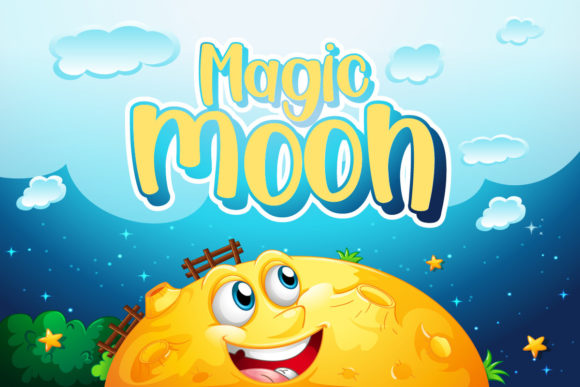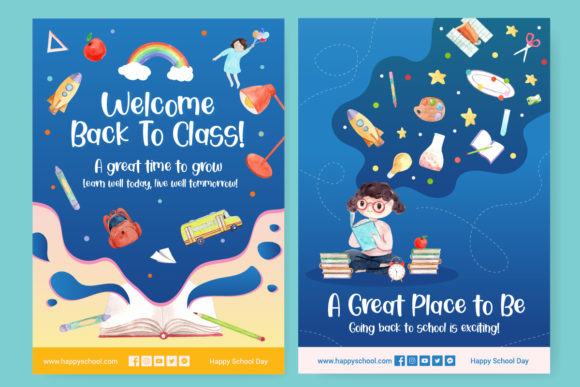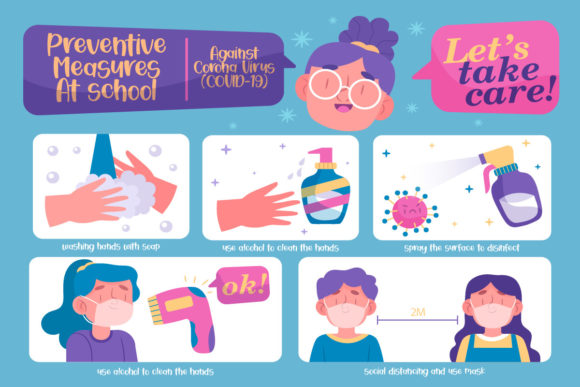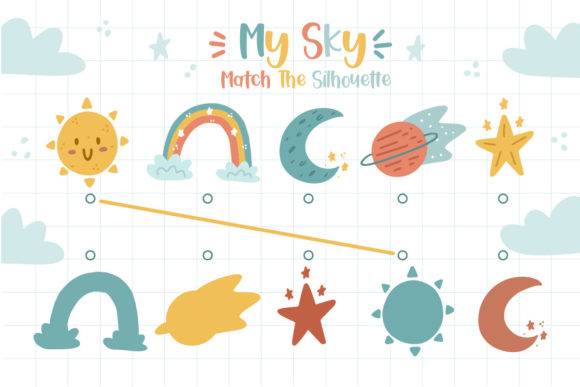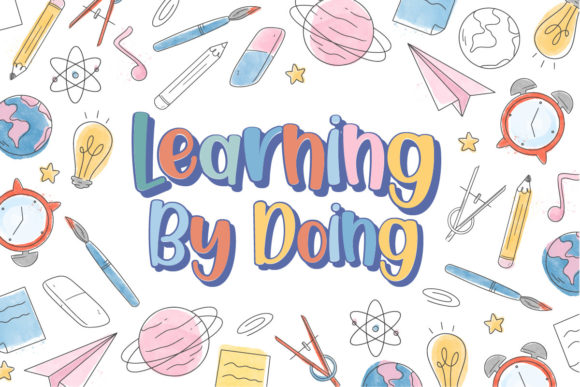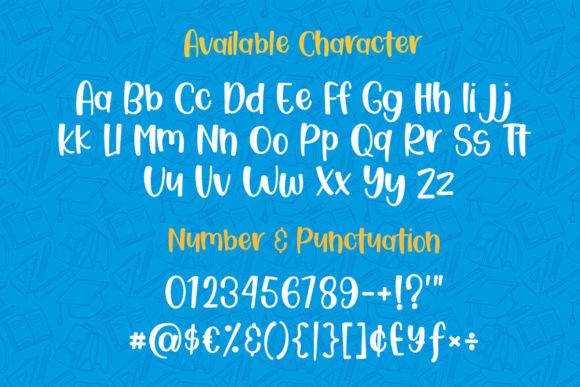
Introduction to Magical Story Font
Magical Story is a cute, jolly and bubbly display font.
Whether you use it for cartoon related designs, children games or just any creation that requires a lovely touch, this font will be an amazing choice .
Key Features of Magical Story Font